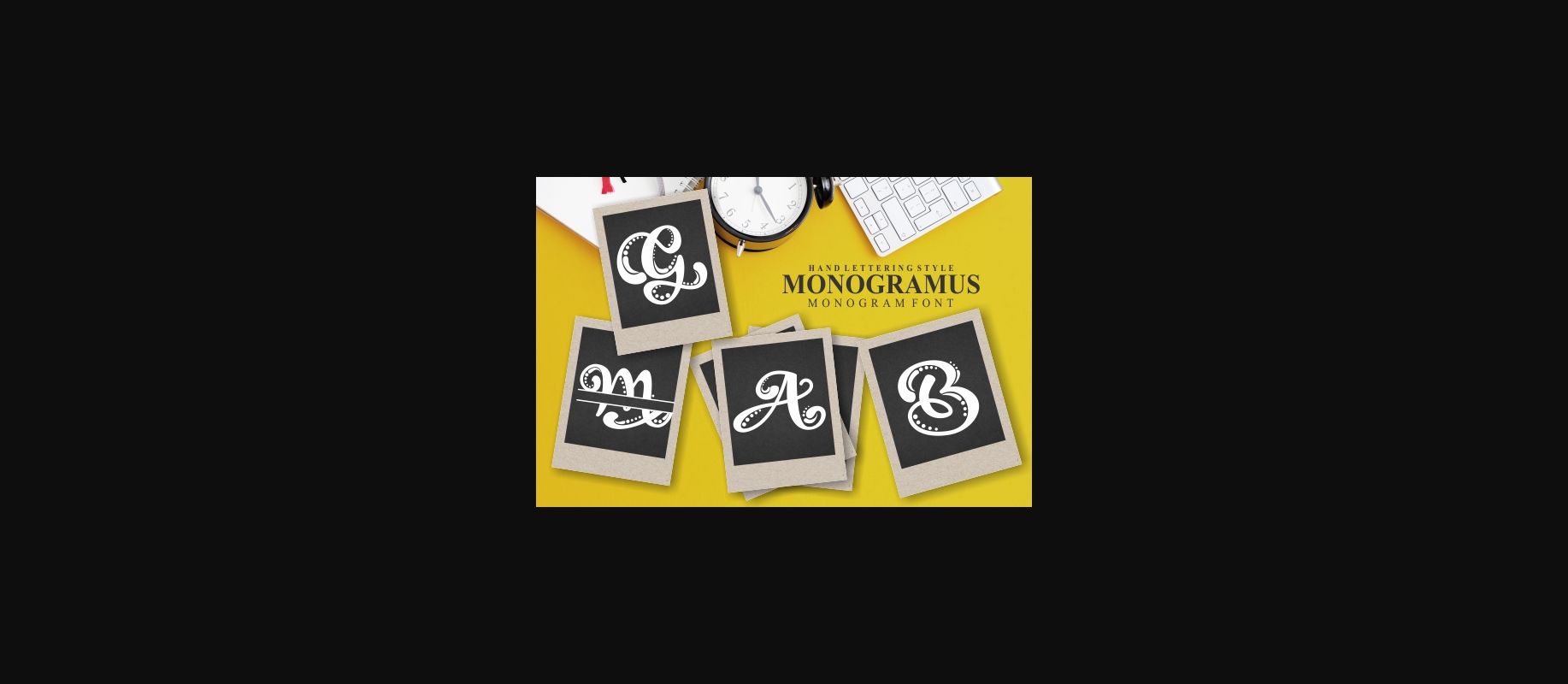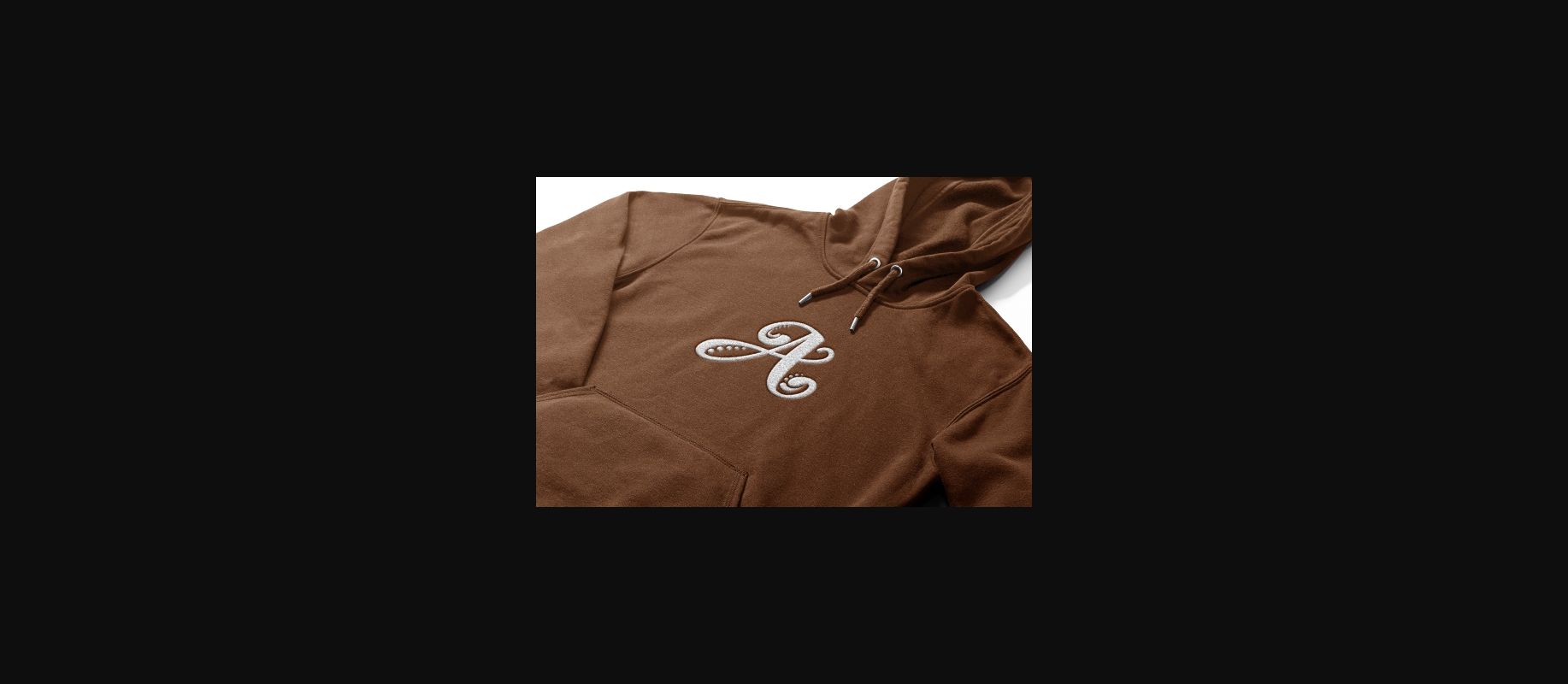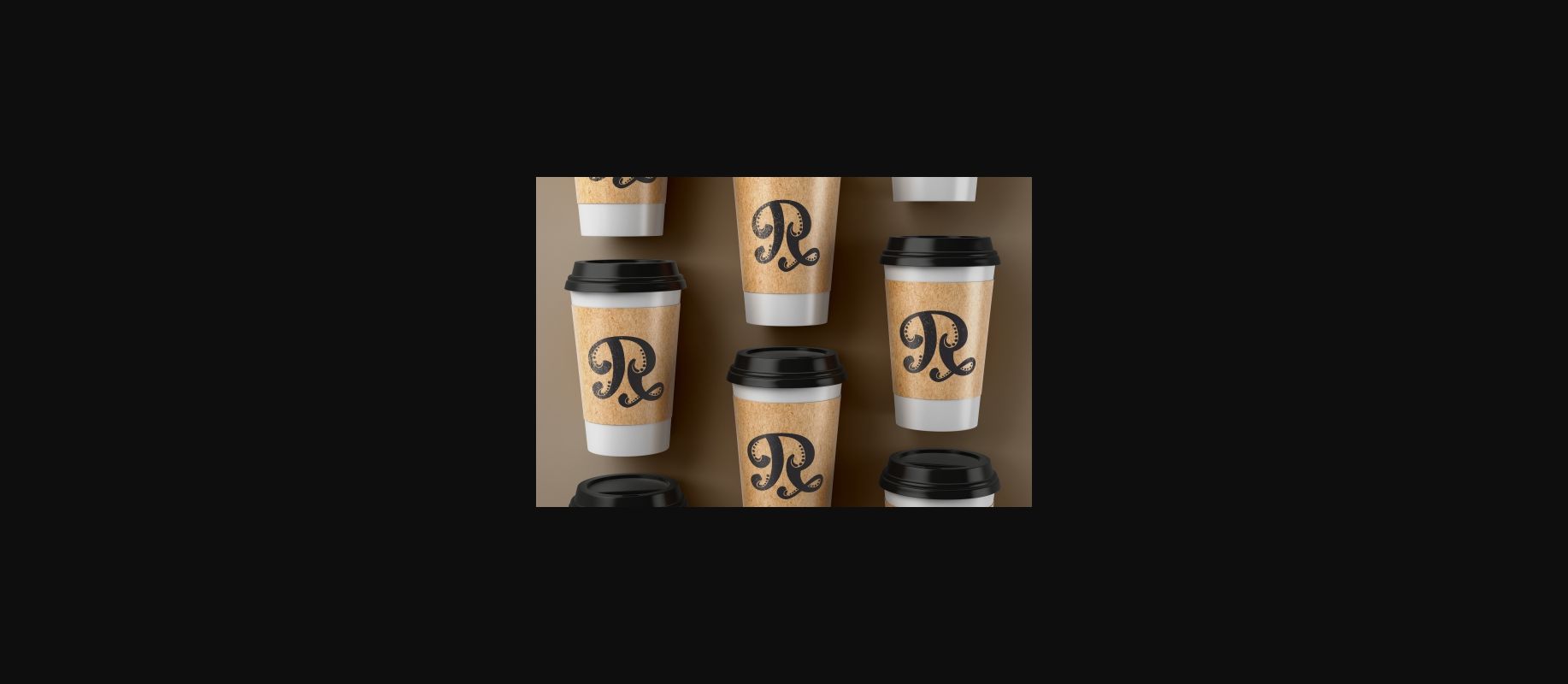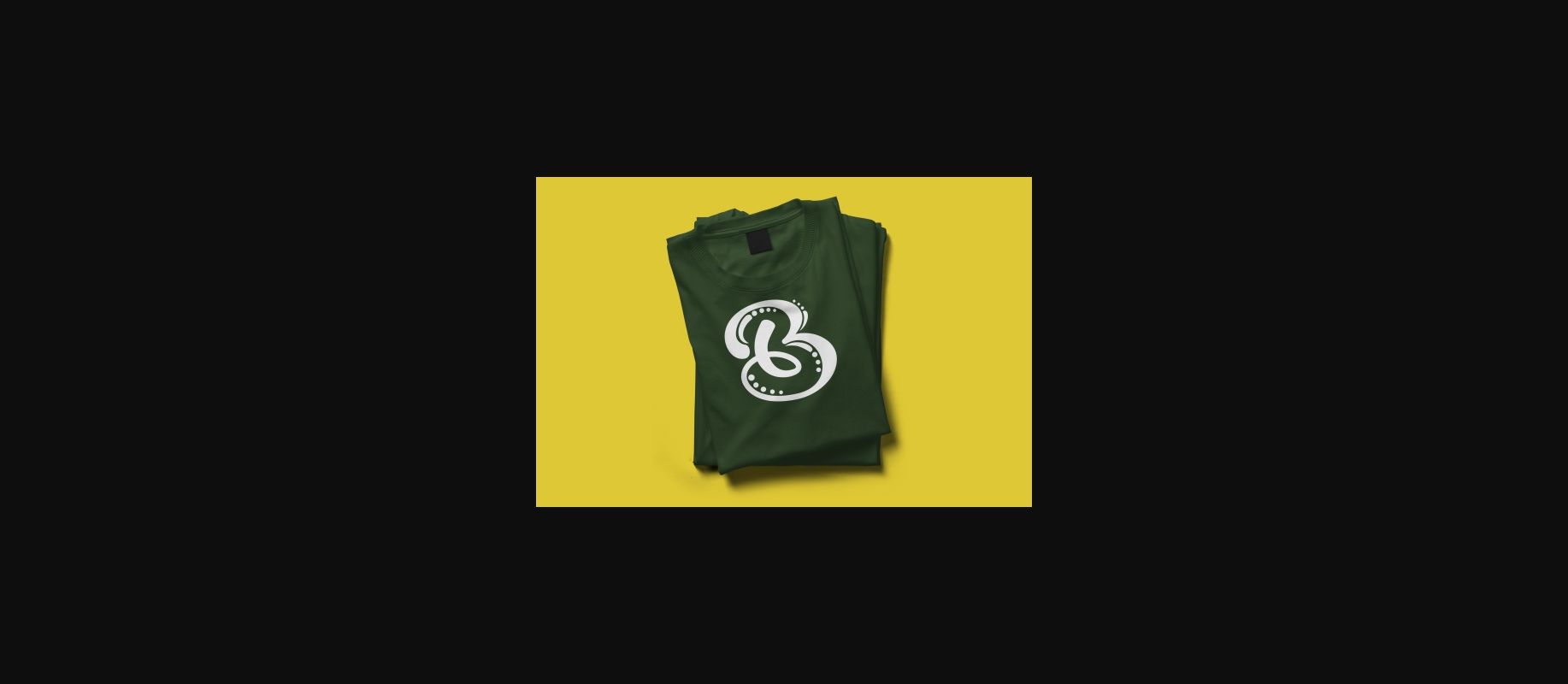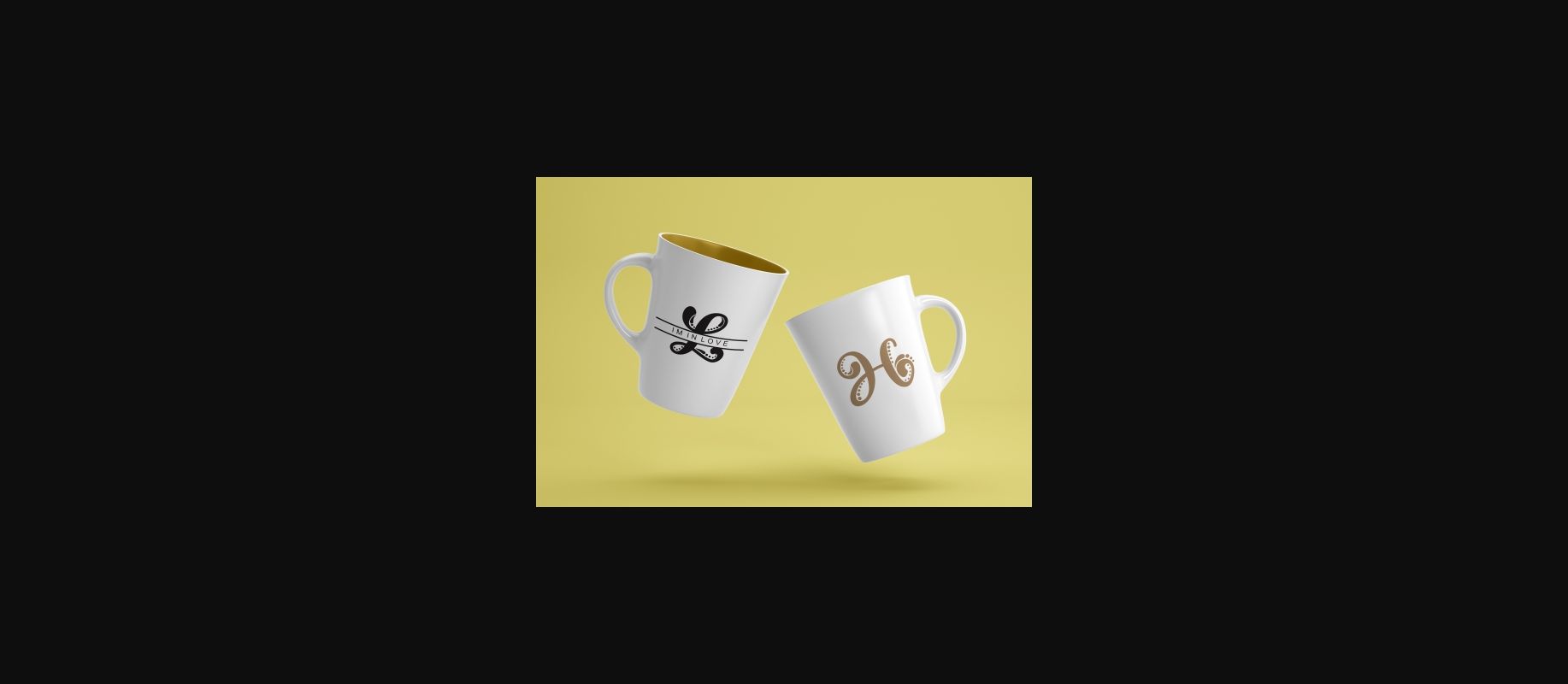
Monogramus Font
About Monogramus Font
Monogramus is a classy decorative font. It is perfect for many different project such as logos & branding, invitation, stationery, wedding designs, social media posts, advertisements, product packaging, product designs, label, photography, watermark, special events and more.